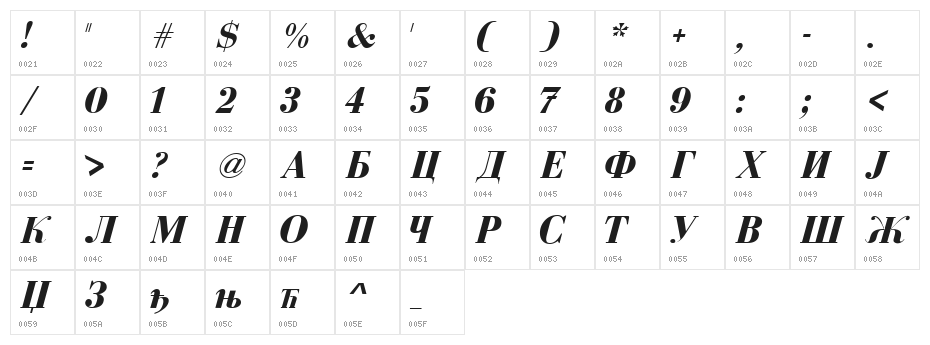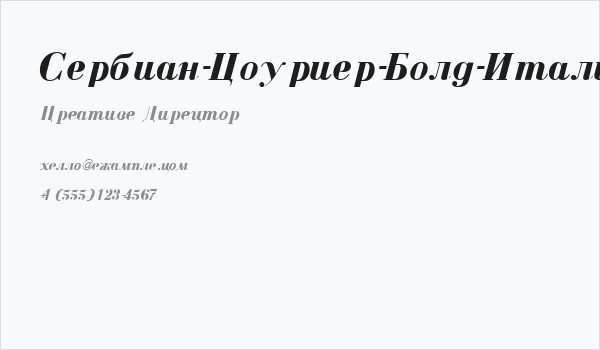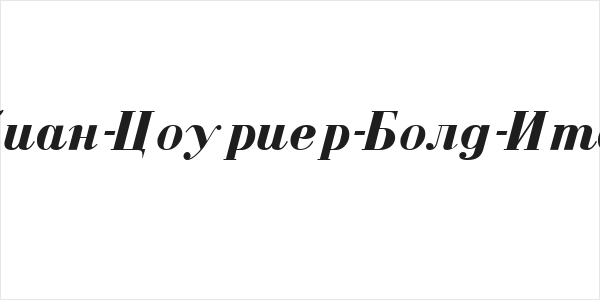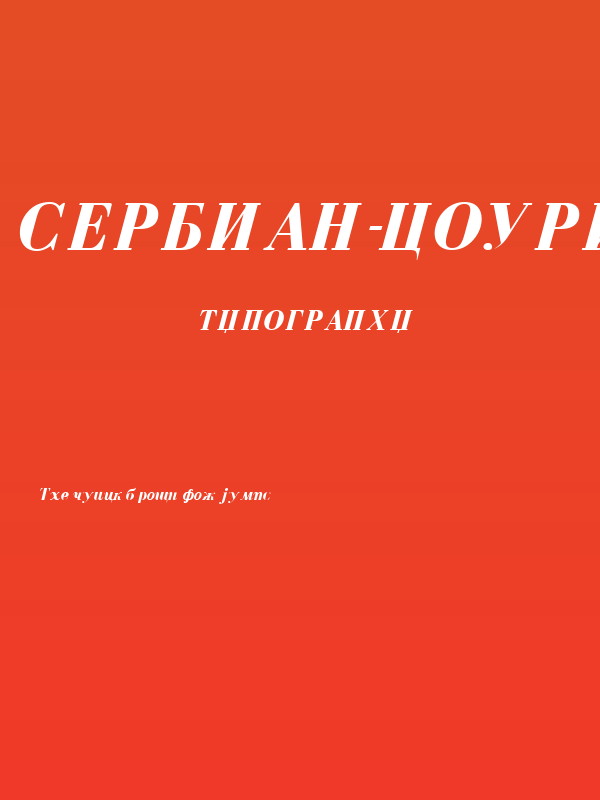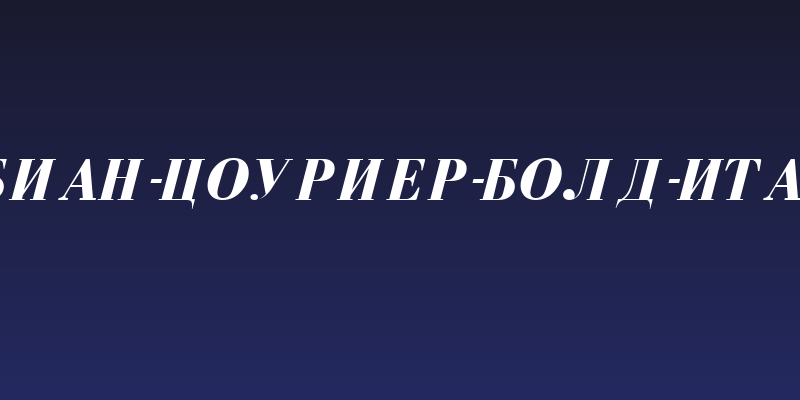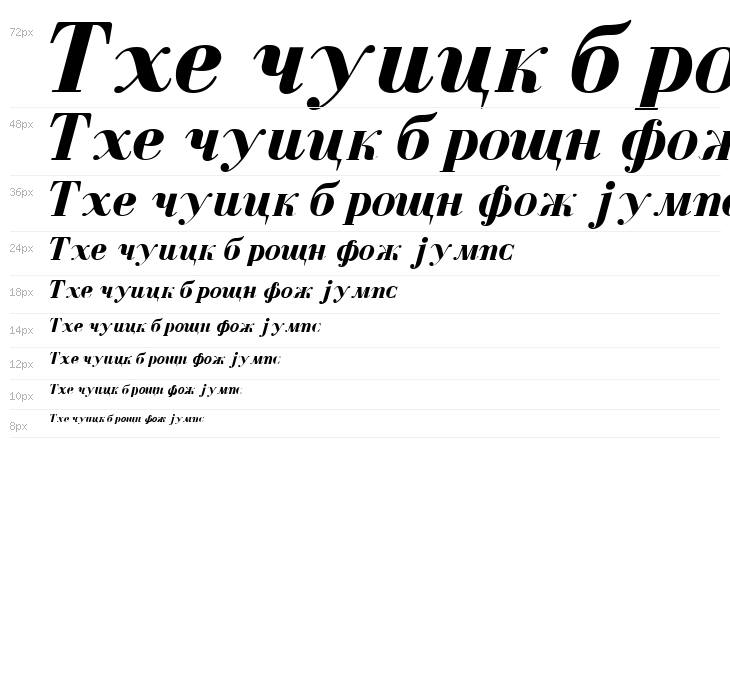
Serbian-Courier-Bold-Italic Font
Serbian-Courier-Bold-Italic Description
This font exhibits a bold and italicized style, characterized by its strong, slanted strokes and pronounced serifs. The Cyrillic characters are elegantly crafted, maintaining a consistent slant that adds a dynamic feel to the text. The numerals and special characters follow the same bold and italicized design, ensuring uniformity across all glyphs. The font's boldness is complemented by a medium contrast in stroke thickness, providing readability while retaining a stylish flair. The character spacing is normal, allowing for clear legibility without overcrowding.
| Use Case | Headlines, Logos, Editorial design |
| Proposed Projects | Ideal for projects requiring a formal yet dynamic look, such as branding, editorial design, and signage. |